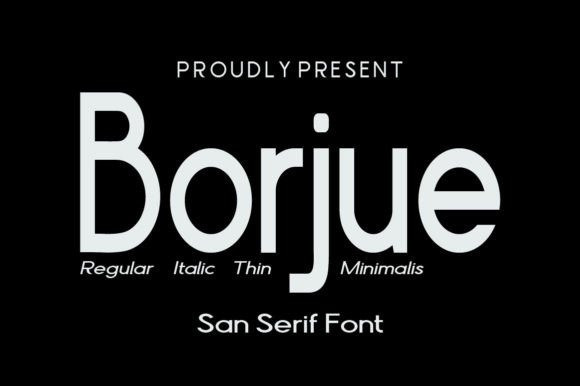
Borjue Font a stunning sans serif font that’s timeless and elegant. Its classic design exudes sophistication and its sleek lines bring a modern touch to any project. With Borjue, your text will always look effortlessly beautiful